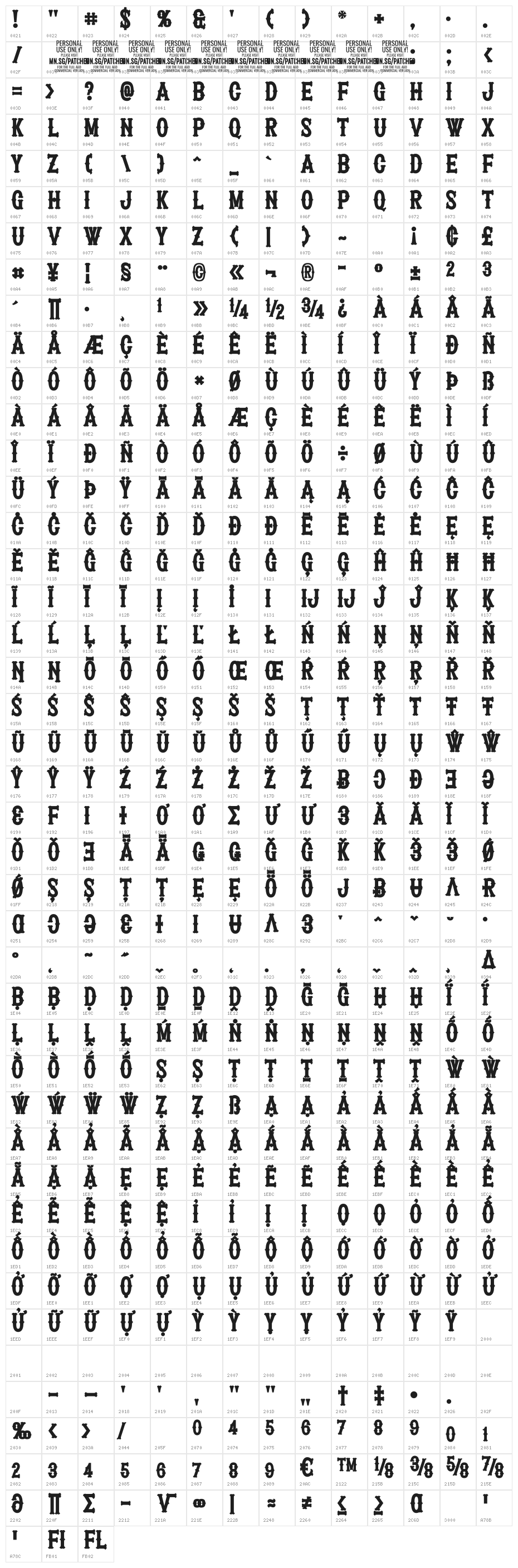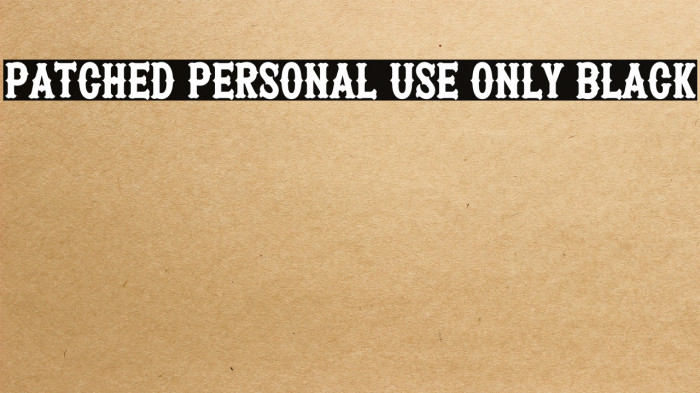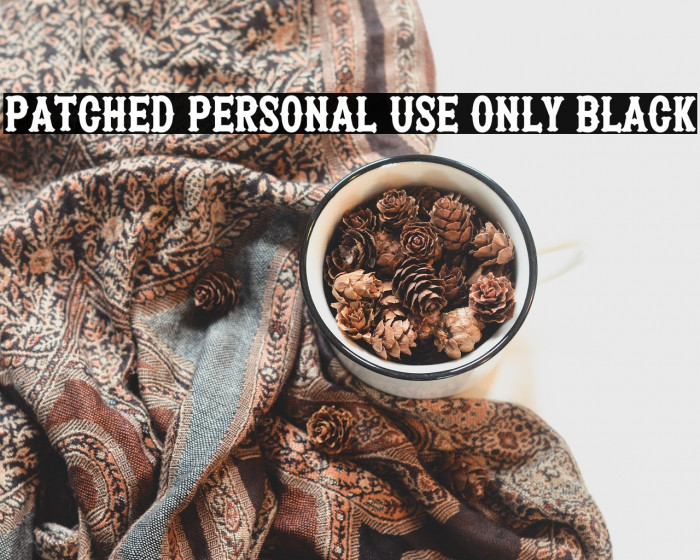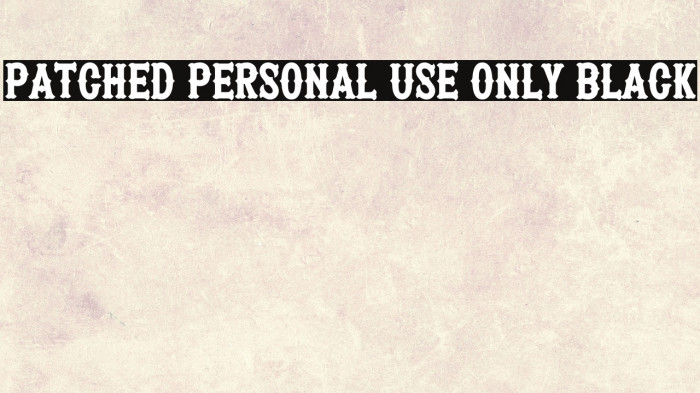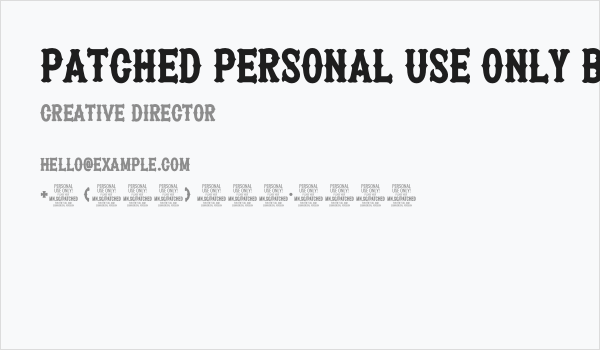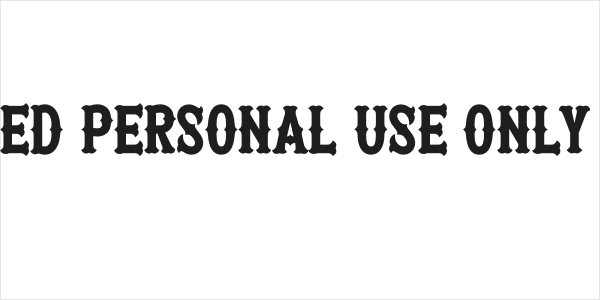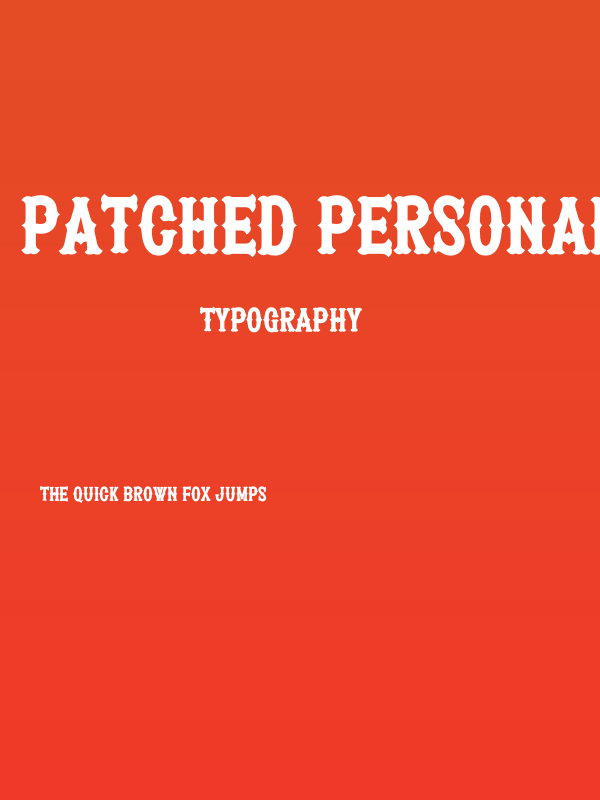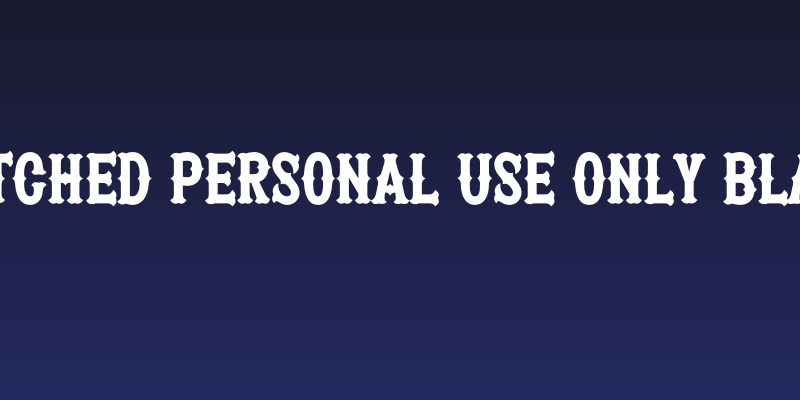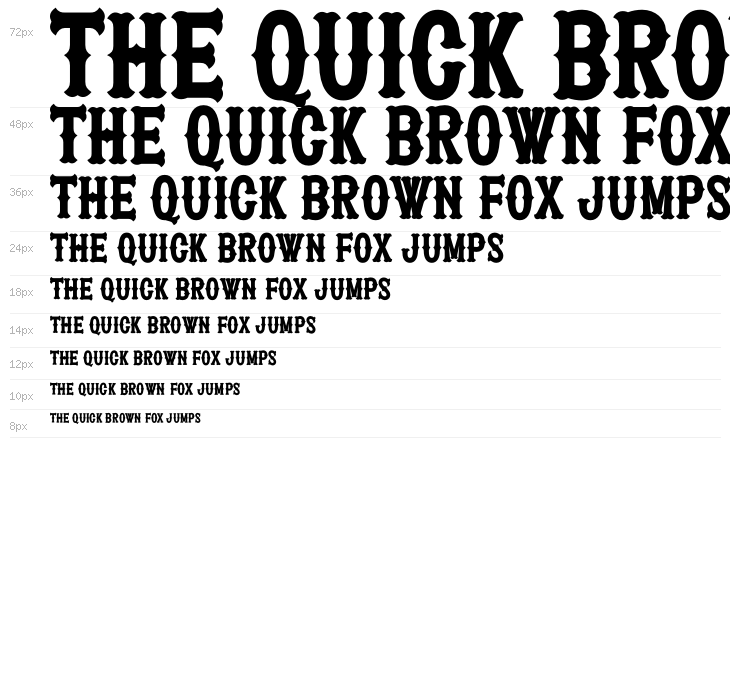
Patched PERSONAL USE ONLY Black Font
Patched PERSONAL USE ONLY Black Description
This font features a bold and dramatic style with thick, heavy strokes and sharp, angular serifs. The characters have a strong presence, making them ideal for attention-grabbing designs. The uppercase letters are particularly striking, with a consistent weight and width that convey a sense of power and authority. The lowercase letters maintain the same boldness, ensuring readability while preserving the font's unique character. The numbers and special characters are equally robust, fitting seamlessly with the overall design. This font's distinct appearance makes it suitable for projects that require a bold statement.